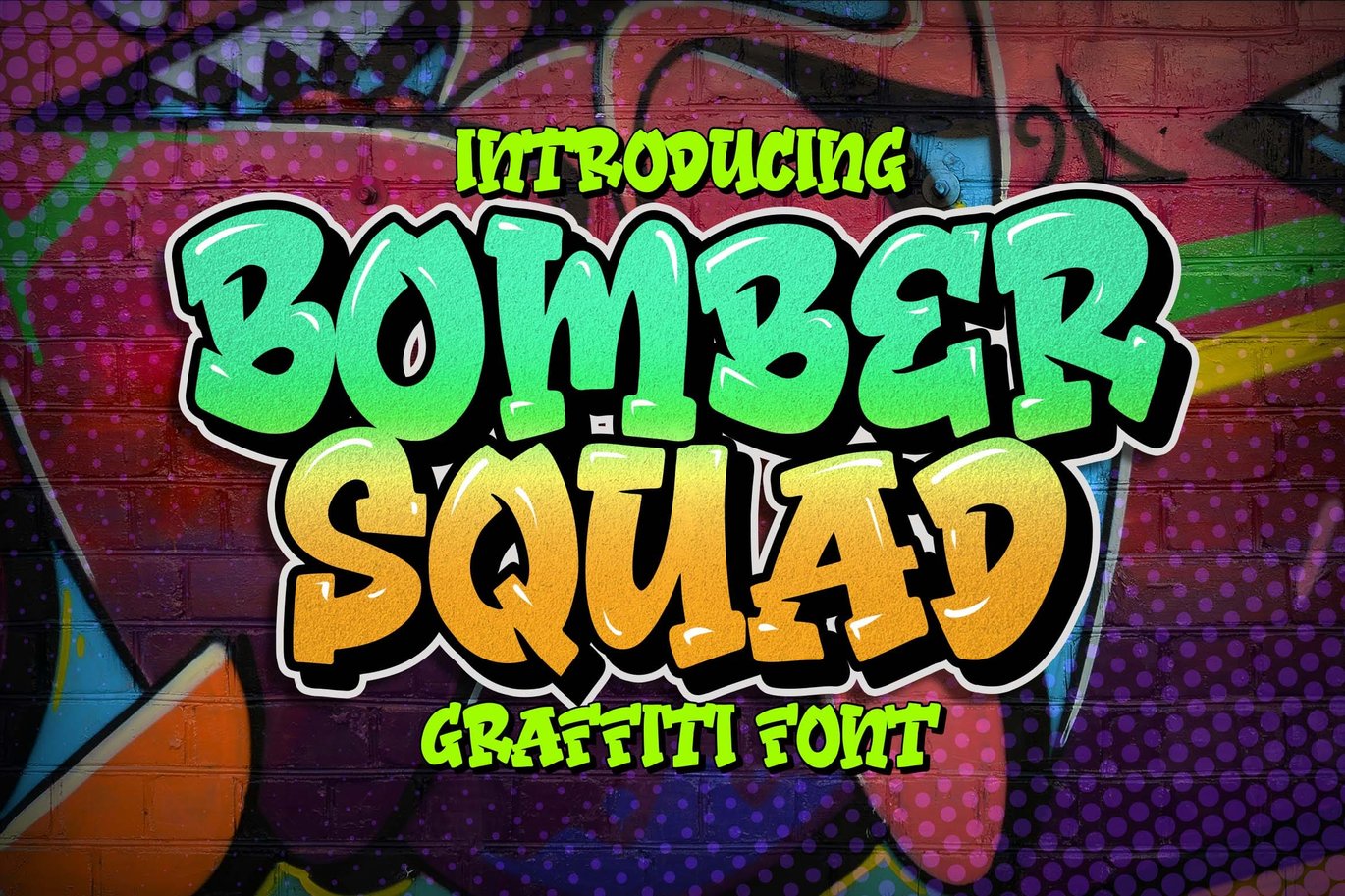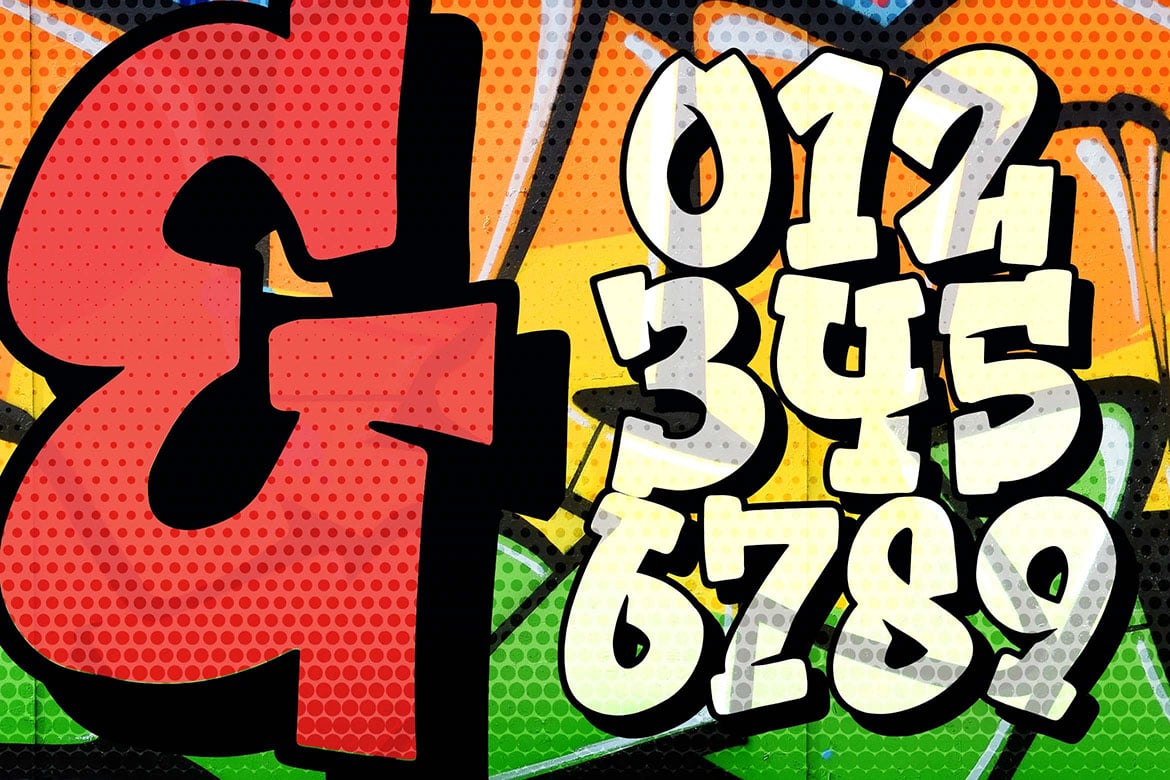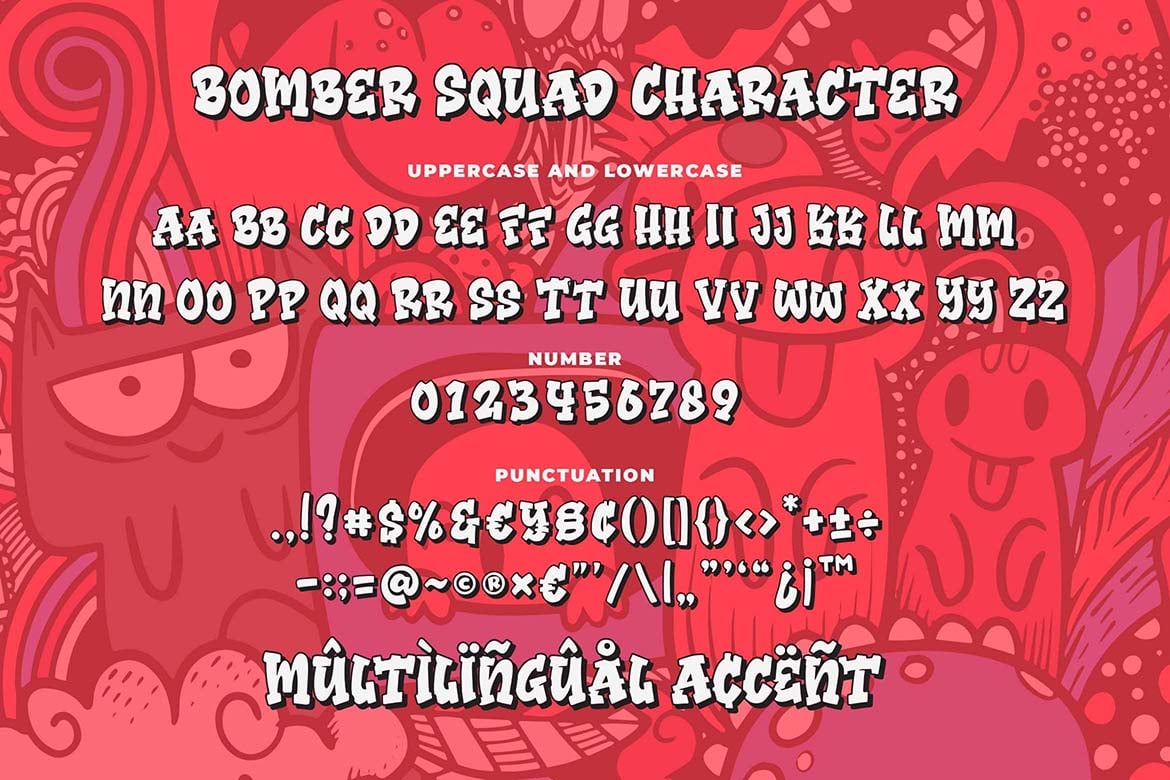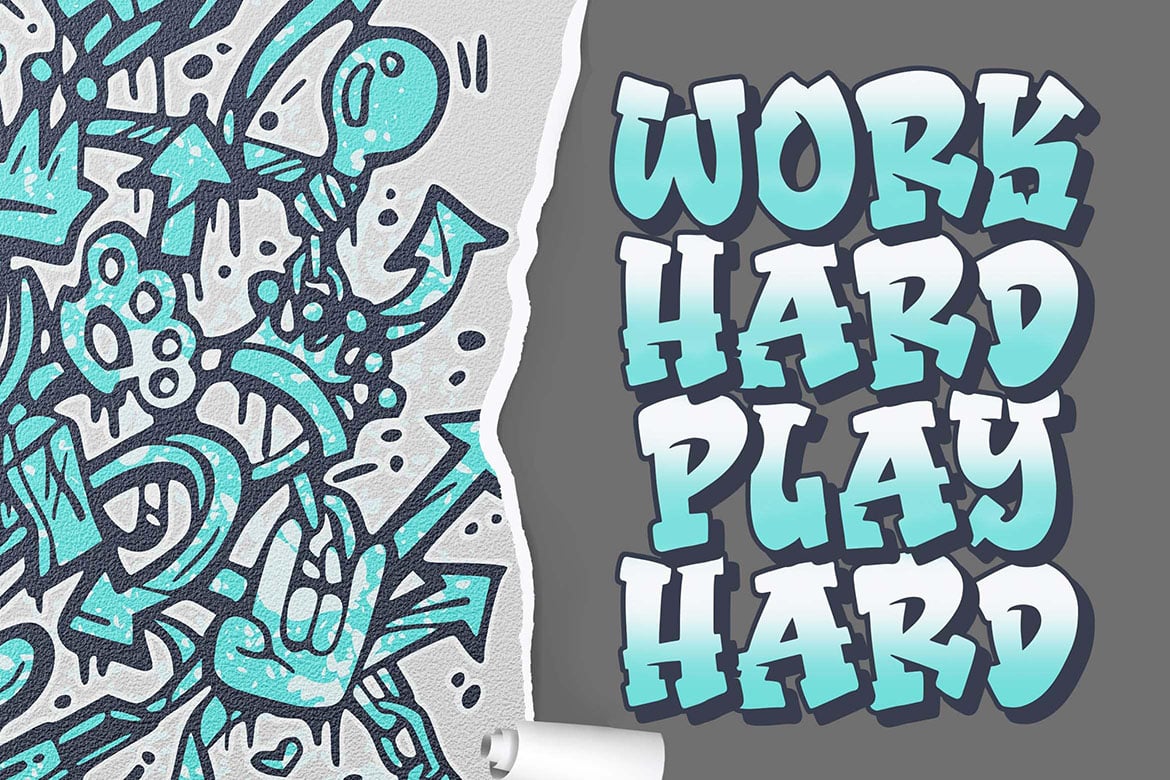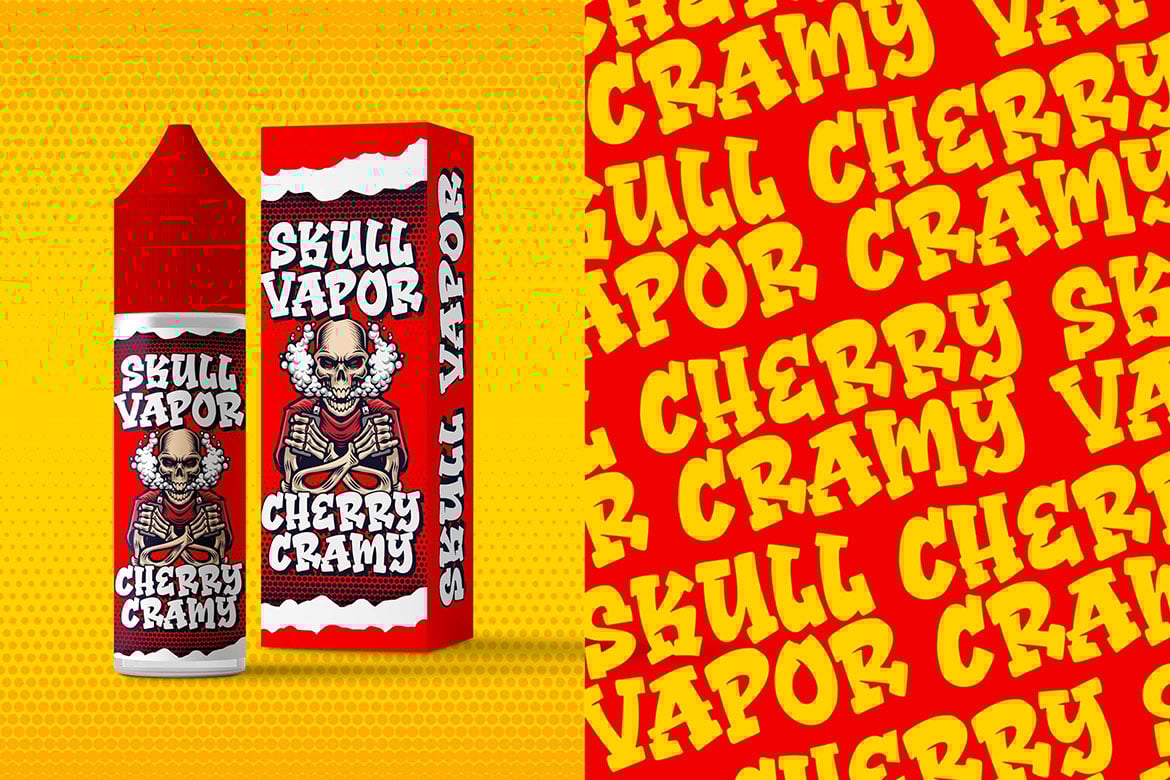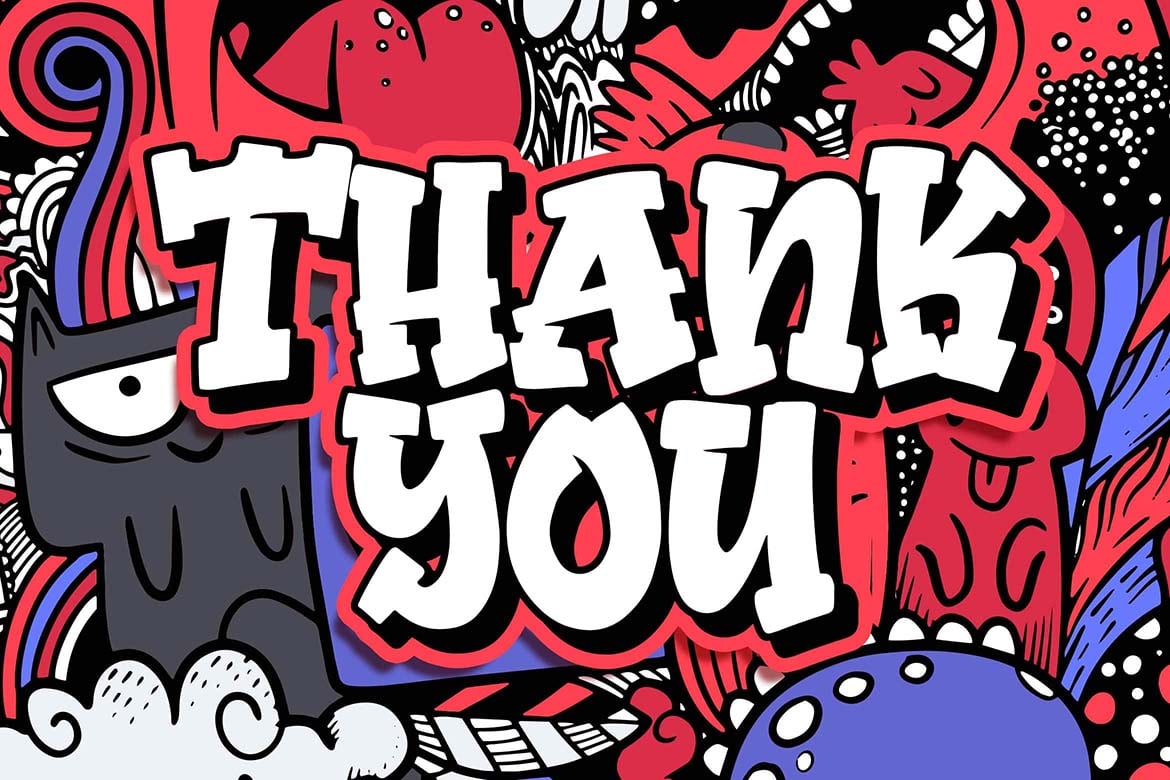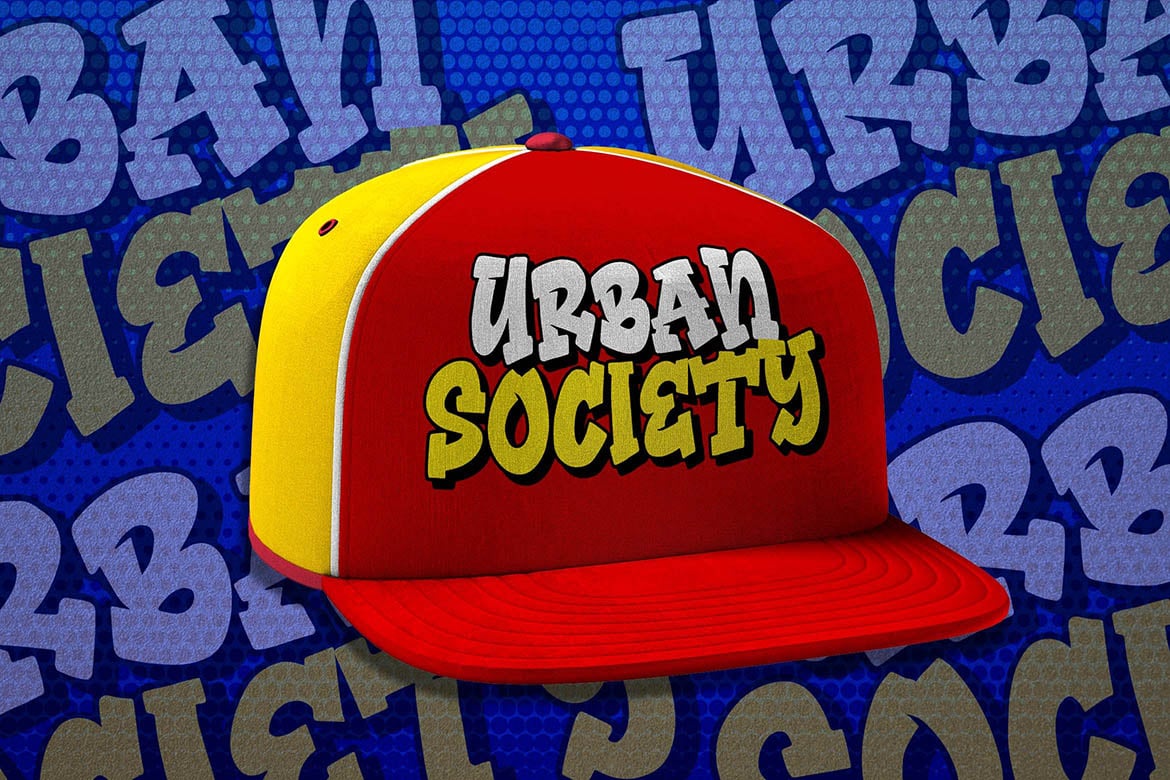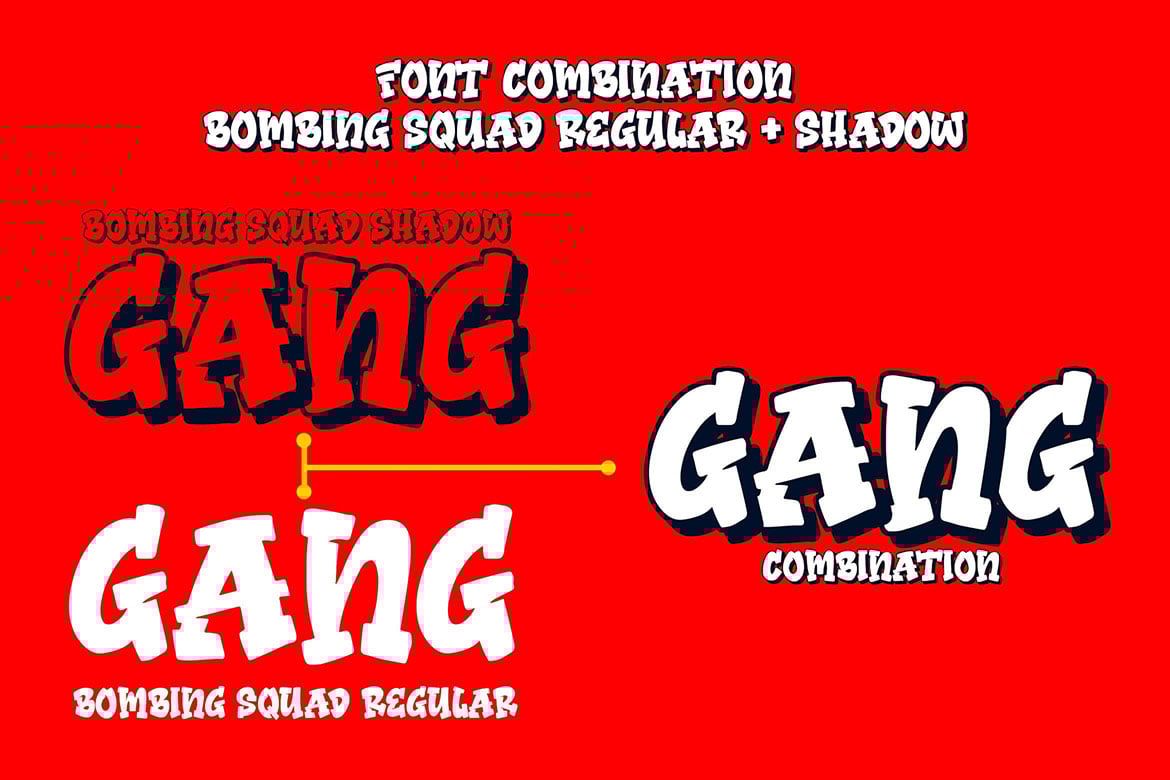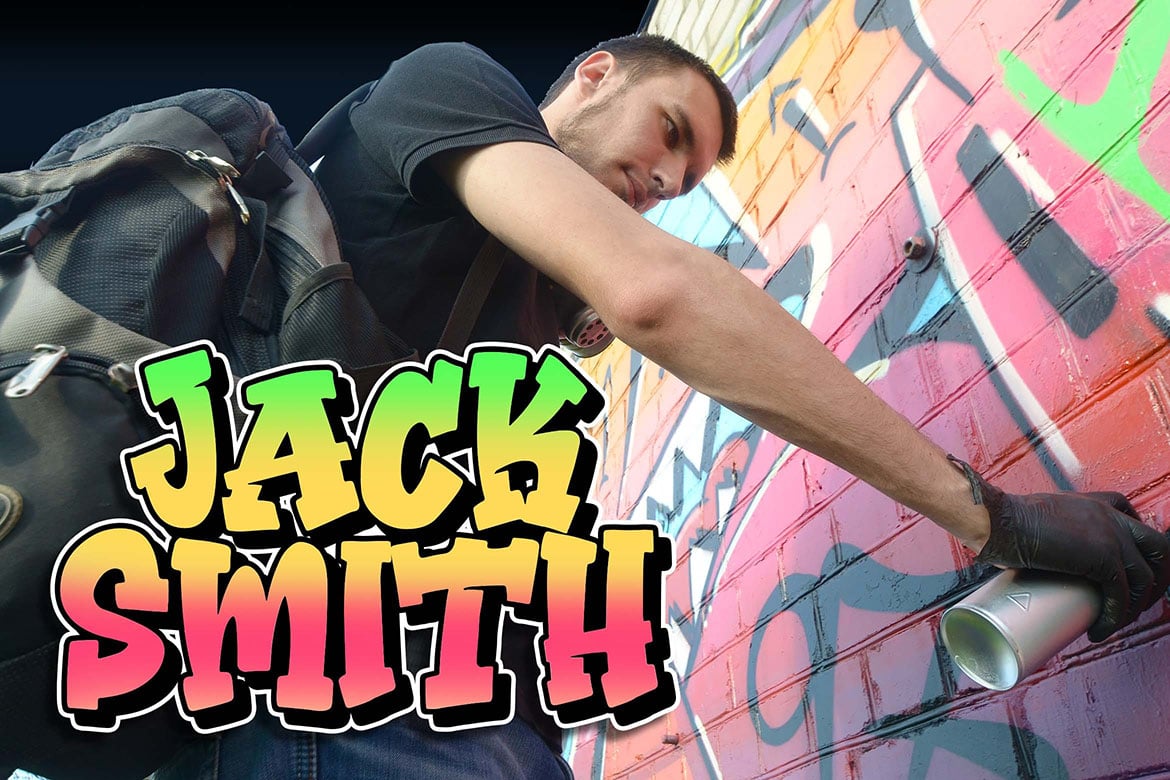
Bomber Squad Graffiti Font
Introducing of our new product the name is Bomber Squad Graffiti Font inspired by graffiti style with a fun theme very good for graffity poster, Hip Hop music, kids poster, flyer, childrenbook, cartoon, comic etc
MULTILINGUAL ACCENT :